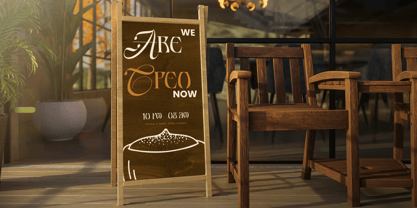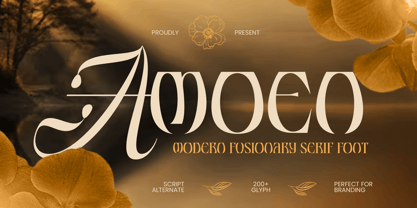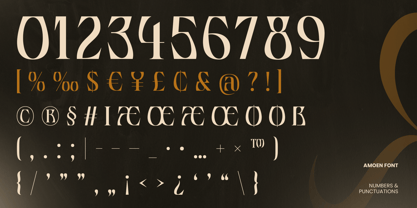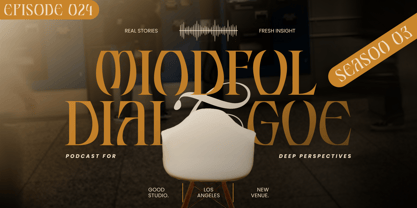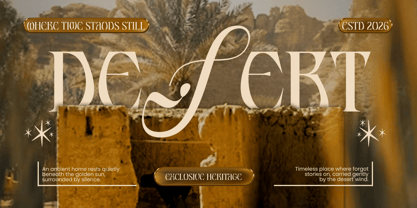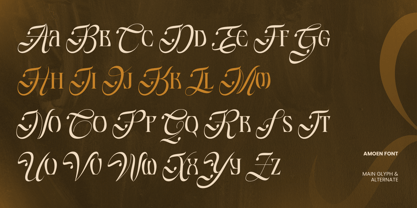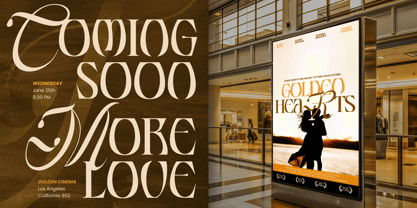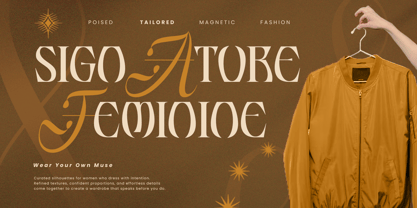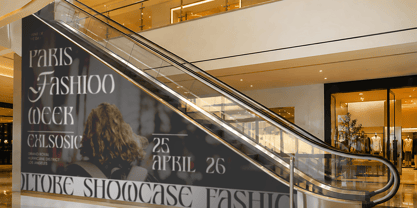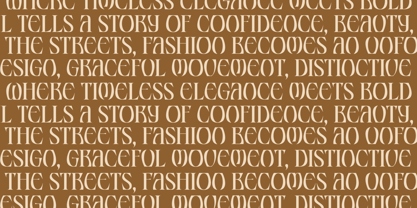
Amoen
AMOEN — Modern Fusionary Serif Font
AMOEN is a modern fusionary serif font that combines refined serif letterforms with expressive alternate script characters. Designed to create a distinctive and elegant visual identity, AMOEN brings together classic sophistication and contemporary creativity in one versatile typeface.
With its graceful serif structure and unique script alternates, AMOEN is perfect for branding, logos, fashion, beauty, editorial design, packaging, invitations, headlines, and luxury visual identities. The combination of its primary serif style and decorative alternates allows designers to create both sophisticated and expressive typographic compositions.
AMOEN is designed for brands and creatives looking for a memorable typeface with an elegant personality, distinctive details, and a modern luxury aesthetic.
Perfect for:
Branding • Logos • Fashion • Beauty • Editorial Design • Packaging • Invitations • Headlines • Luxury Branding • Visual Identity
Make your typography distinctive with AMOEN — where refined serif meets expressive script.